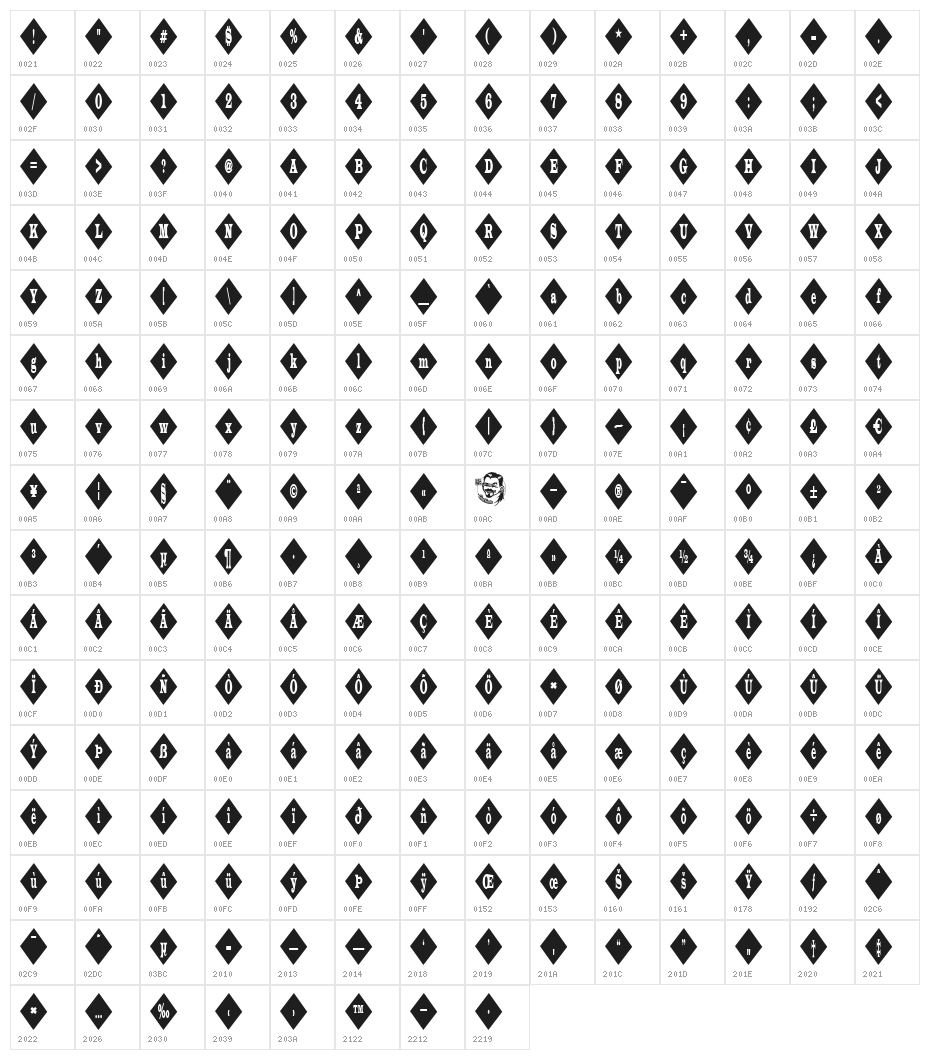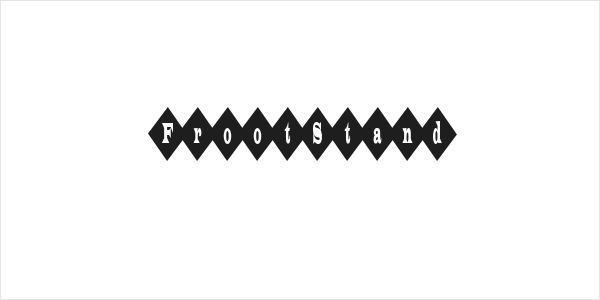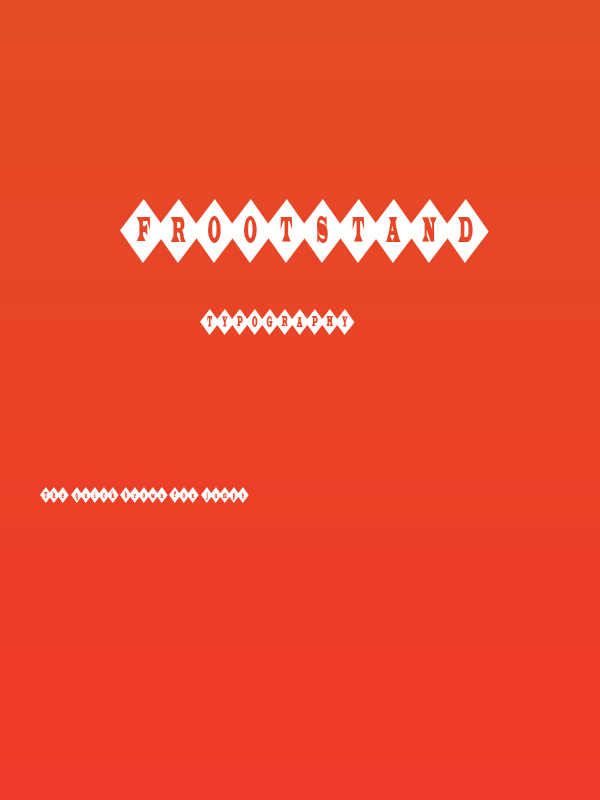
FrootStand Font
FrootStand Description
This font features a bold and playful design with a distinct diamond-shaped background for each character. The uppercase and lowercase letters are well-defined with a slight serif touch, giving them a classic yet quirky appearance. The numbers and special characters maintain the same bold style, ensuring consistency across all elements. The overall look is eye-catching and suitable for designs that require a strong visual impact.
| Overall Style | Playful, Quirky |
| Proposed Projects | Ideal for posters, children's books, playful branding, and creative advertising. |